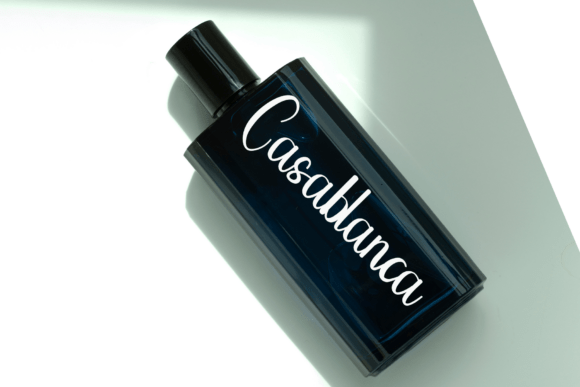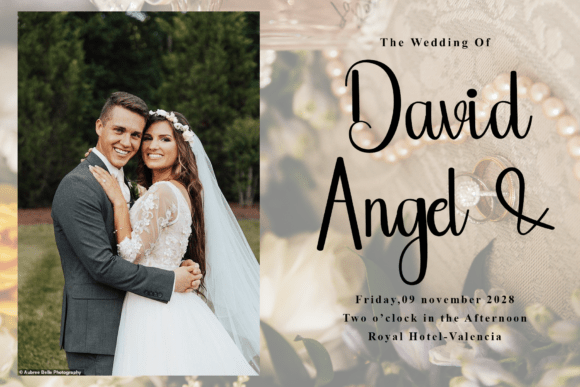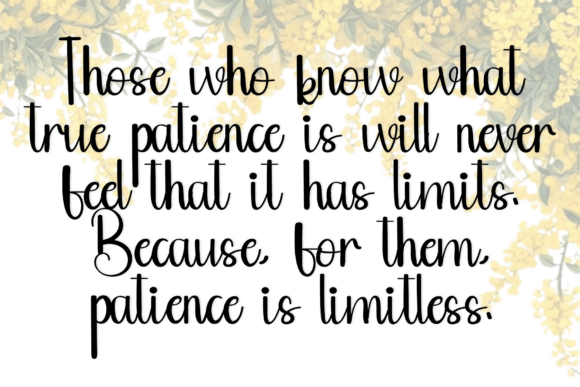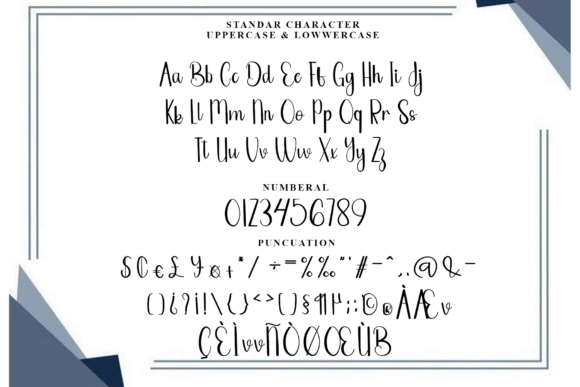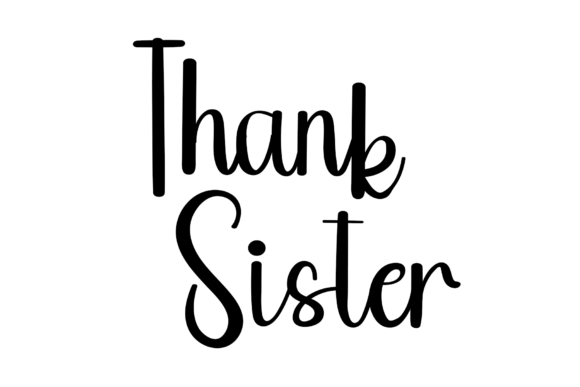
Biscuit Font: Adding a Personal Touch to Your Designs
In the world of typography, fonts play a crucial role in conveying the tone and personality of a design. If you’re looking for a font that exudes warmth, approachability, and a touch of whimsy, look no further than the Biscuit font. This casual handwritten font has been gaining popularity among designers and crafters alike, and for good reason. In this article, we’ll dive into the features and benefits of the Biscuit font, and explore how it can elevate your designs.
The Charm of Biscuit Font
Biscuit is a carefully crafted font that embodies the essence of authentic handwriting. Its smooth strokes, natural curves, and easy-flowing letterforms create a sense of fluidity and movement, making it perfect for designs that require a personal touch. The font’s casual, handwritten feel is both modern and approachable, making it ideal for a wide range of applications, from quotes and invitations to branding and social media posts.
Key Features of Biscuit Font
- Smooth Strokes: The Biscuit font features smooth, flowing strokes that give it a natural, handwritten feel.
- Natural Curves: The font’s curves are organic and effortless, adding to its charm and personality.
- Easy-Flowing Letterforms: The letterforms in the Biscuit font are designed to flow smoothly into one another, creating a sense of movement and fluidity.
- Versatile Character: The font’s versatile character makes it suitable for a wide range of applications, from formal to informal designs.
Benefits of Using Biscuit Font
So, why choose the Biscuit font for your designs? Here are just a few benefits:
- Readability: The Biscuit font is designed to be highly readable, making it perfect for designs that require a clear and concise message.
- Charm: The font’s charming, handwritten feel adds a touch of personality to any design, making it stand out from the crowd.
- Flexibility: The Biscuit font is versatile and can be used in a variety of contexts, from digital designs to print materials.
The Biscuit font is a dream come true for designers and crafters who want to add a personal touch to their work. Whether you’re creating social media graphics, invitations, or branding materials, this font is sure to impress. Its effortless style and charming personality make it perfect for:
- Quotes: Add a touch of whimsy to your quotes with the Biscuit font.
- Invitations: Create beautiful, handmade-style invitations that will make your guests feel special.
- Branding: Use the Biscuit font to add a personal touch to your brand’s identity.
- Social Media Posts: Elevate your social media posts with the Biscuit font’s charming, handwritten feel.
In conclusion, the Biscuit font is a versatile and charming addition to any designer’s toolkit. Its smooth strokes, natural curves, and easy-flowing letterforms make it perfect for designs that require a personal touch. With its effortless style and charming personality, the Biscuit font is sure to become a favorite among designers and crafters alike. So why not give it a try and see how it can elevate your designs?